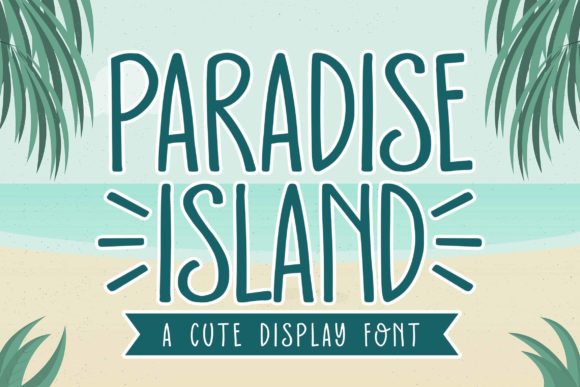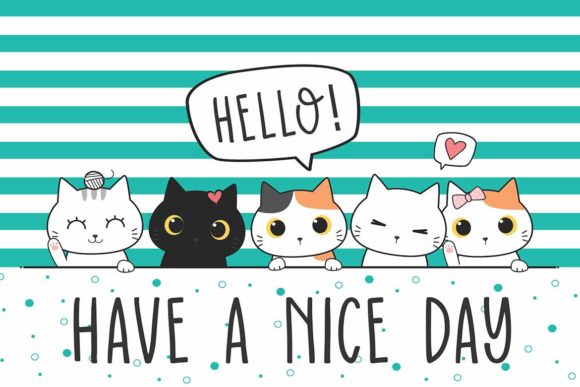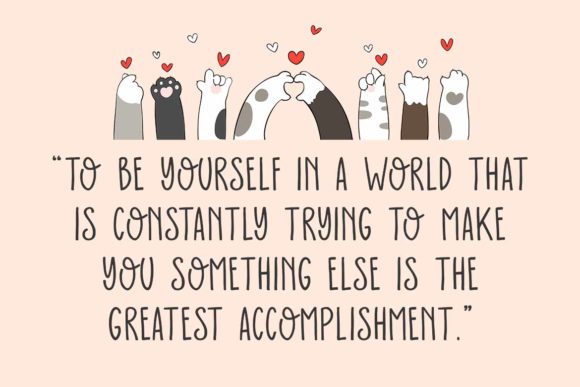
Paradise Island Font: A Cute & Playful Display Font for Cricut Projects!
About the Paradise Island Font
Crafted with precision, the Paradise Island Font is ready to bring your ideas to life. Paradise Island is a minimal and neat display font. It can easily be matched to an incredibly large set of projects, so add it to your favorite ideas and notice how it makes them come alive!
Paradise Island’s clean lines and minimal design make it ideal for headlines, logos, and short, impactful text on posters or packaging. Its crisp geometry lends itself well to modern branding projects requiring a touch of sophistication. Avoid using it for body text or long paragraphs; its legibility suffers at smaller sizes.
The font’s personality is best described as modern and elegant, with a touch of understated boldness. This makes it a strong choice for brands aiming for a sleek, refined image.
Pairing Paradise Island with a classic serif like Garamond for body copy creates a sophisticated contrast. For a more contemporary feel, pair it with a geometric sans-serif such as Futura or a rounded sans-serif like Open Sans. These pairings provide readability and visual balance.
Paradise Island Font Usage Examples
Paradise Island Font Example